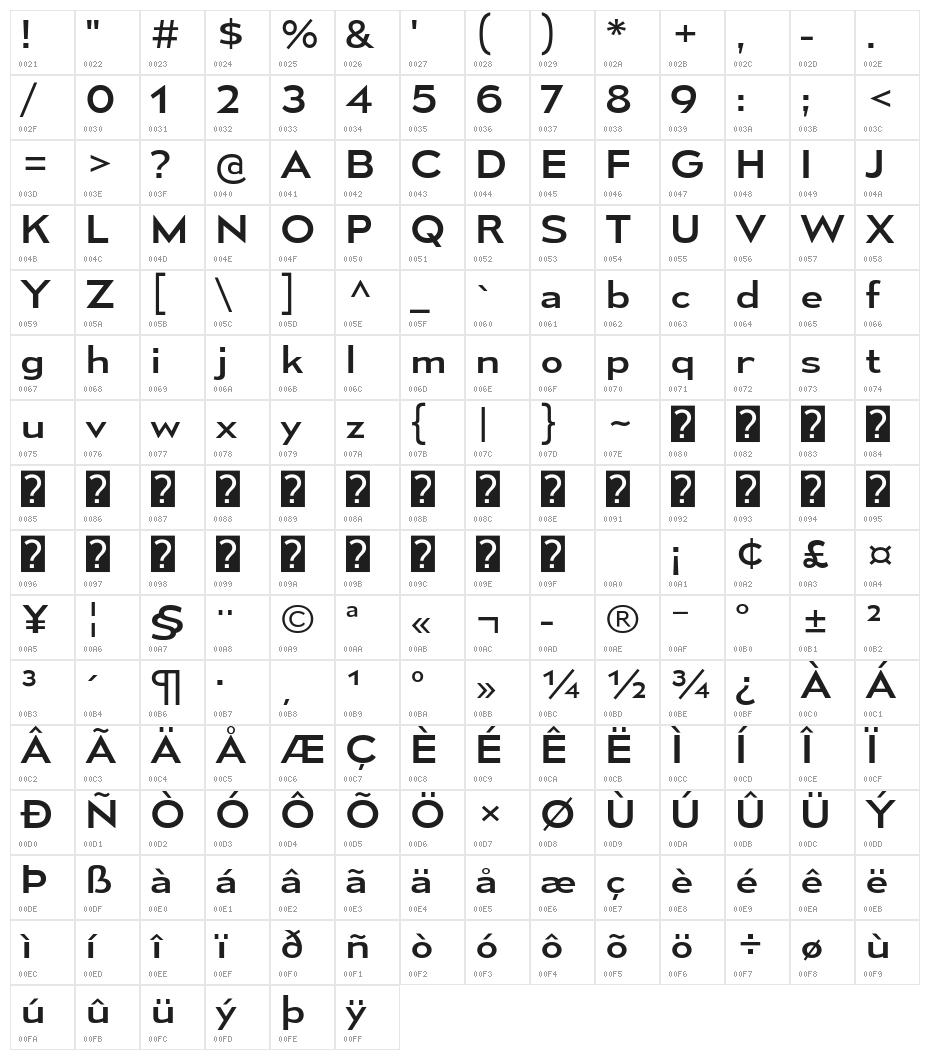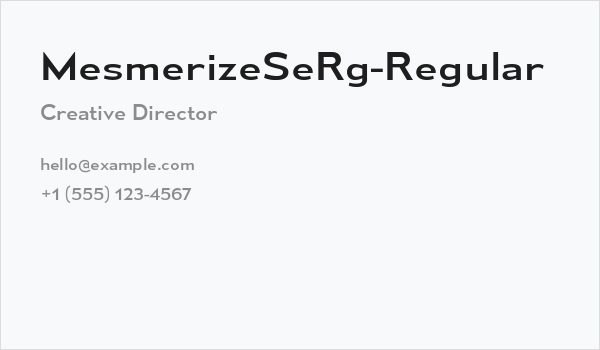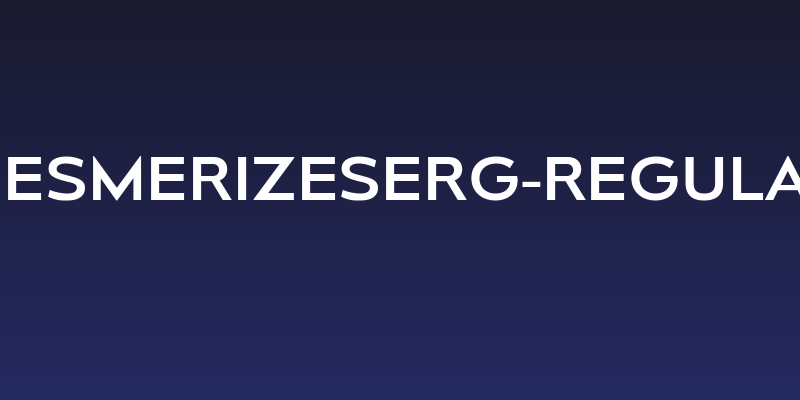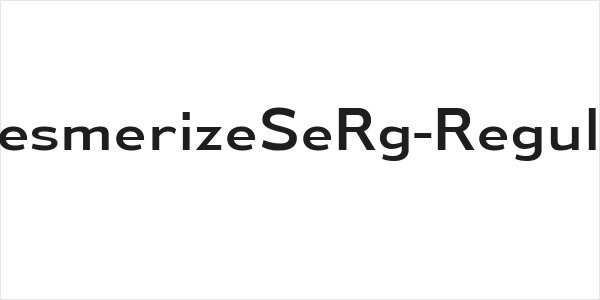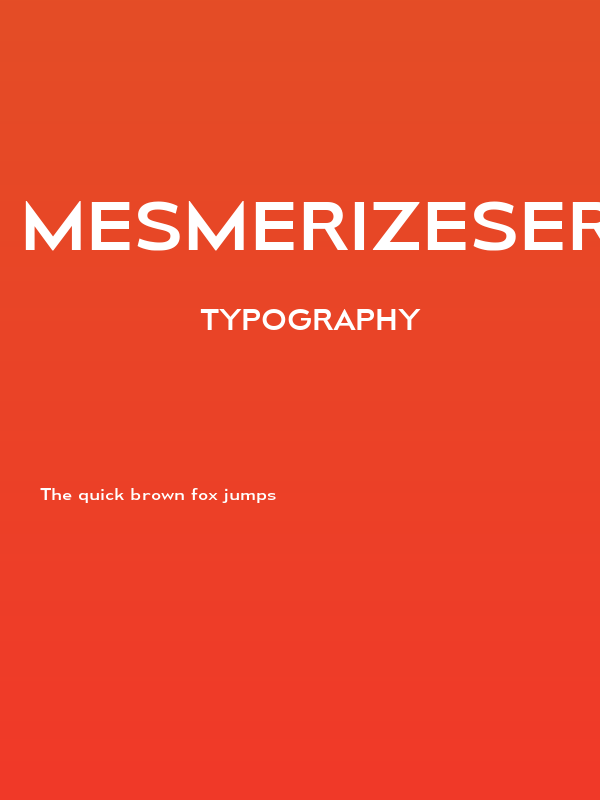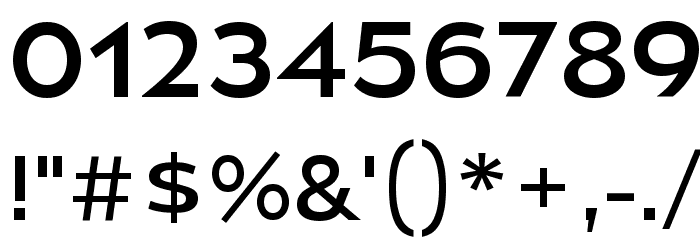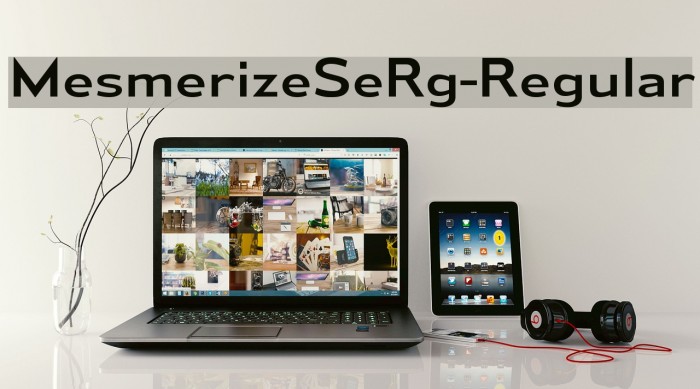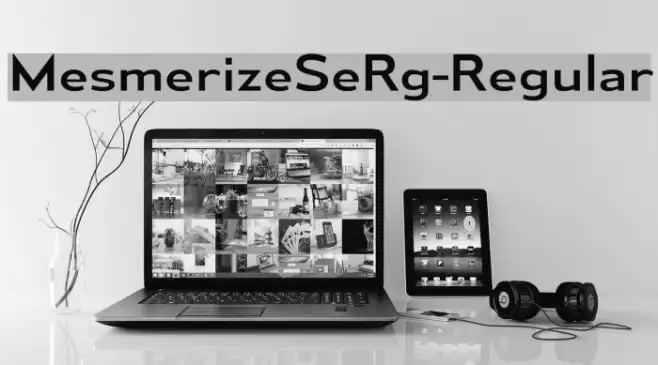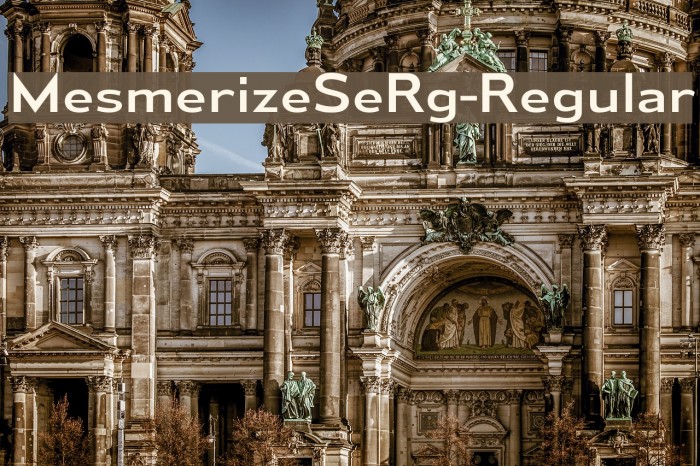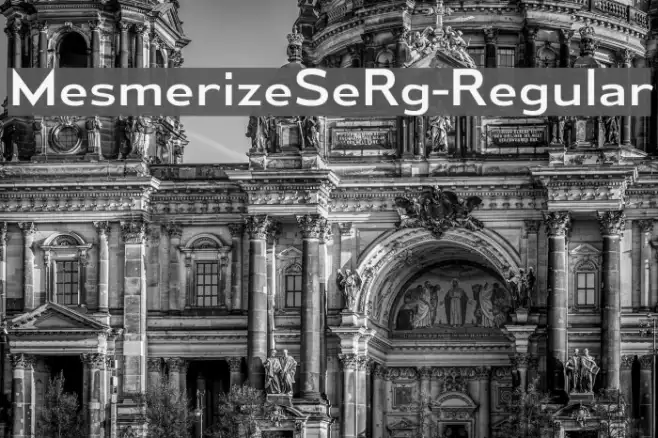
MesmerizeSeRg-Regular Font
MesmerizeSeRg-Regular Description
This font exhibits a clean and modern sans-serif style with a geometric influence. The characters are well-balanced, featuring consistent stroke widths that provide a uniform appearance. The uppercase letters are bold and assertive, while the lowercase letters maintain a friendly and approachable demeanor. The numerals are clear and easy to read, making them suitable for various applications. Special characters are designed with precision, ensuring they complement the overall aesthetic. The font's simplicity and clarity make it versatile for both digital and print media.
| Proposed Projects | Ideal for branding, web design, advertising, and editorial layouts due to its clarity and modern appeal. |